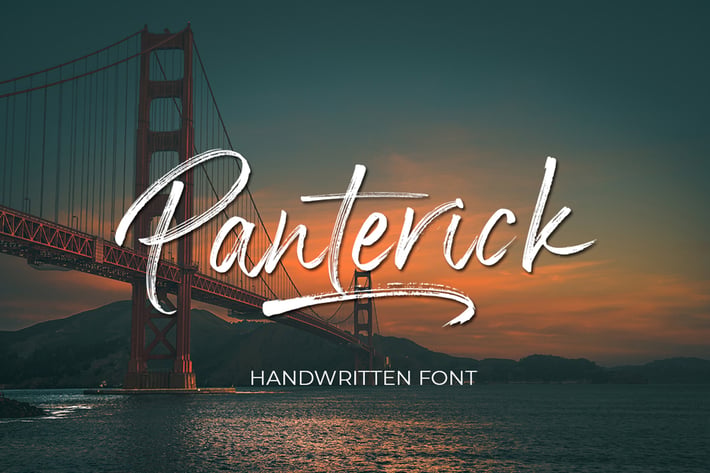
Panterick // Handwritten Font
Debut Studio presents the latest font Panterick Handwritten Font
This font is perfect for design purposes such as logo design, t-shirt, heading, magazine, newspaper, website, to design quotations, posters, business cards, and others.
- Standard ligatures and alternate stylistic
- Multilingual support
- spread your message globally AÀÁÂÃÄÅCÇDEÈÉÊËIÌÍÎÏNÑÒÓÔÕÖUÙÜÚÛWYÝŸ?ŸÆß